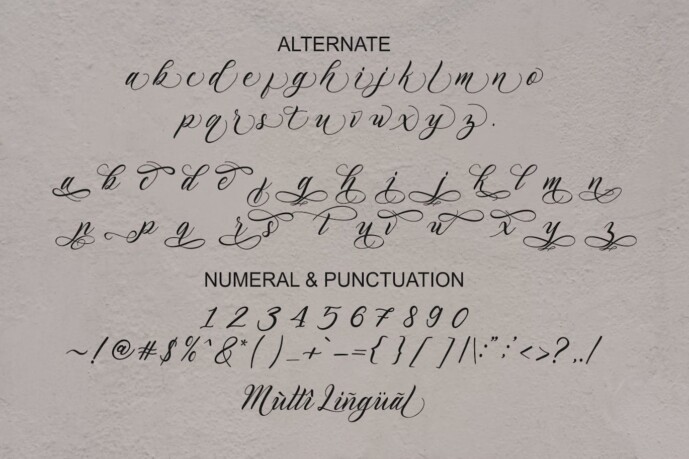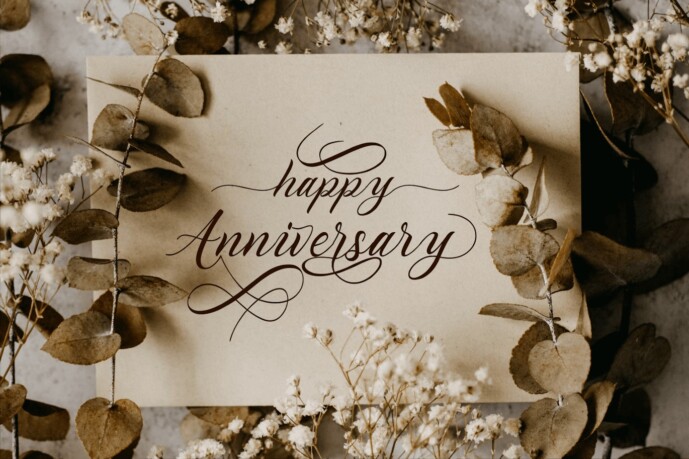
Jasmin Font
Jasmine Font is perfect for labels, premium packaging, wedding stationery, invitations, business cards, branding and other projects requiring a script touch and luxury.
Jasmine, includes a full set of delicate uppercase and lowercase letters, multilingual support, punctuation marks, ligatures, variations, slash and stylistic set.